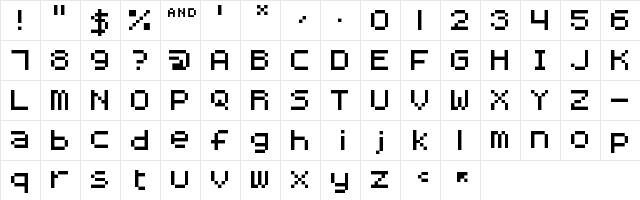
8-bit fortress Regular
Design Context for 8-bit fortress Typeface
8-bit fortress is a composed and adaptable typeface that performs quietly and consistently across a wide range of design contexts.